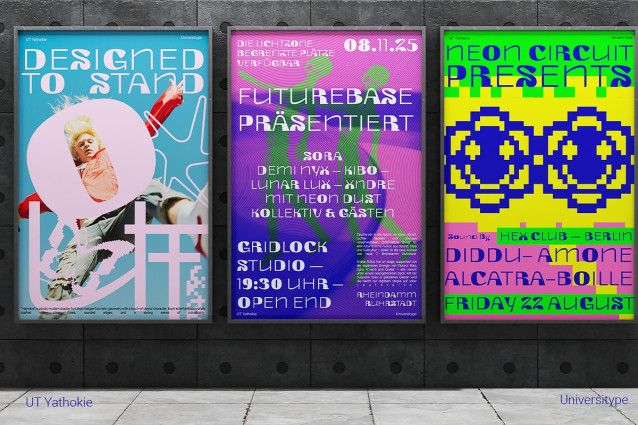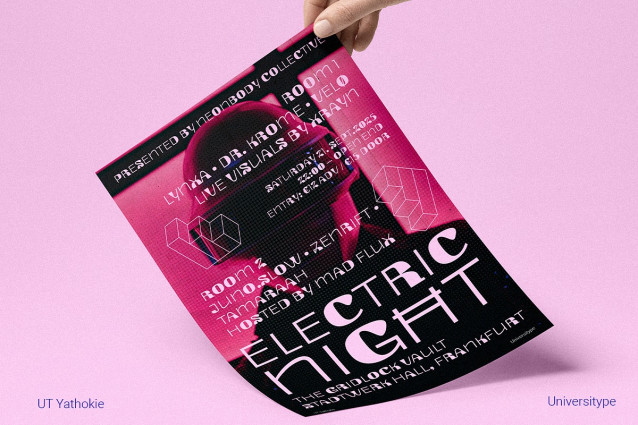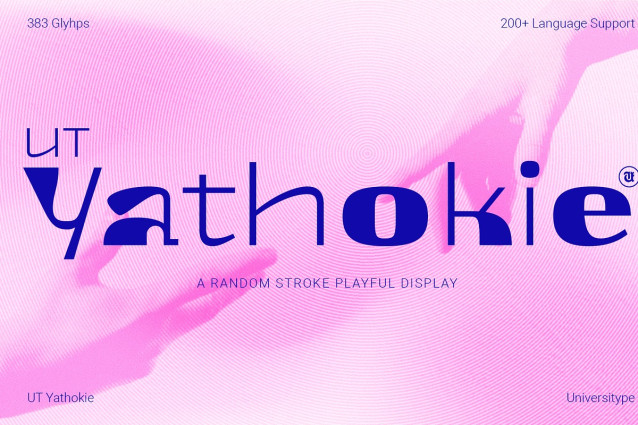
UT Yathokie Font
UT Yathokie doesn’t follow rules, because rules are boring. It’s a quirky, unpredictable display font that brings a jolt of personality to whatever it touches. Think techno-pop with a sketchbook soul. This typeface thrives in the space between structure and spontaneity, clean on one edge, full of surprise on the other.
From brand identities to experimental posters, Yathokie is here to turn heads and keep them tilted just a little longer. It plays with rhythm, breaks up patterns, and still lands with clarity.